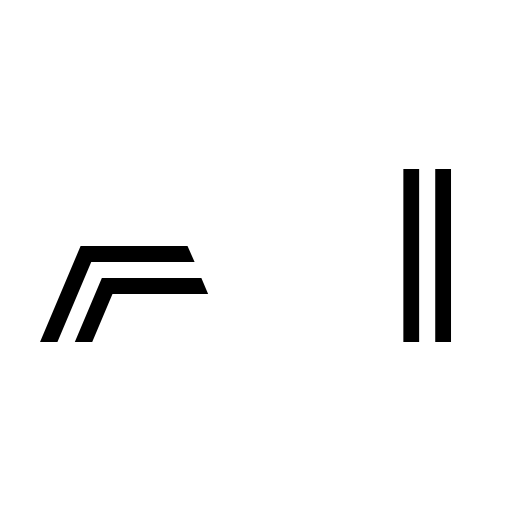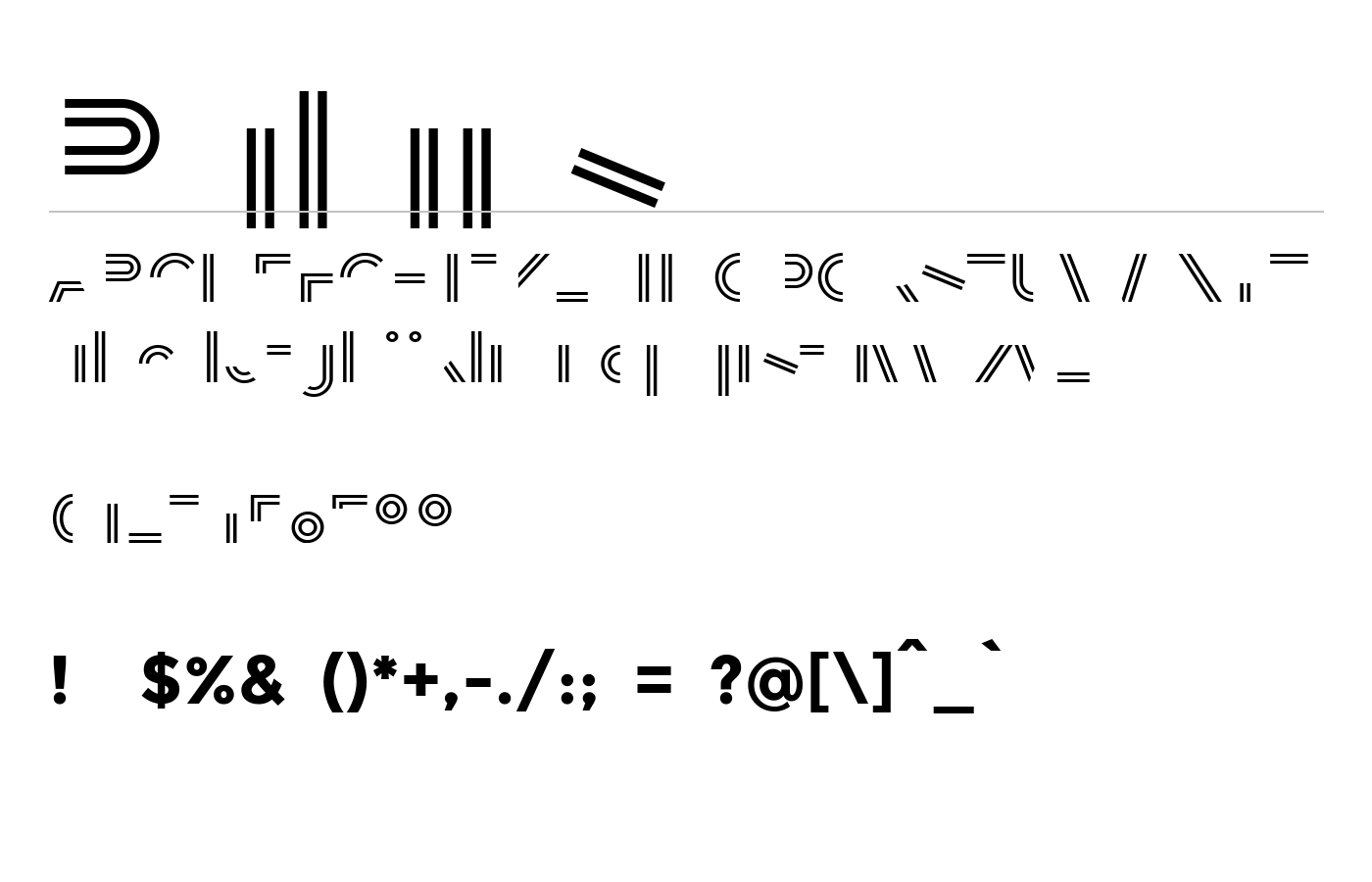
Balans is a modern, geometric sans serif font with a unique double-line stroke design that creates a striking, futuristic appearance. Its clean, bold weight combined with open spacing makes it ideal for eye-catching headlines, logos, and branding that seek a contemporary and innovative vibe. This font works especially well in creative and tech-focused contexts where standout, stylish typography is key.
Balans Font
About Balans Font
| Font family | Balans Font |
| Designer | Thomas Breure |